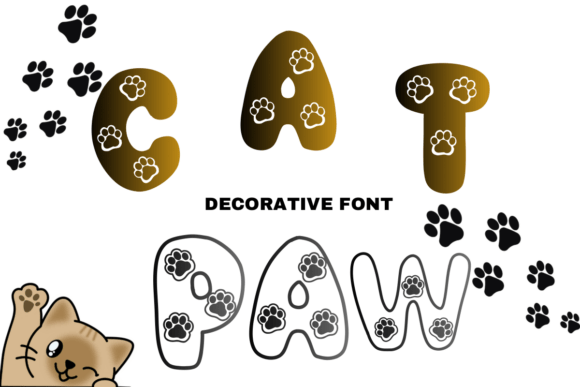
Cat Paw Font: The Purrfect Addition to Your Creative Projects
Are you a designer, crafter, or DIY enthusiast looking for a unique and adorable font to add to your creative projects? Look no further than the Cat Paw Font! This cute decorative font is sure to bring a touch of whimsy and playfulness to your designs, and we’re excited to share all the details with you.
What is Cat Paw Font?
Cat Paw Font is a charming, hand-drawn font that features cat paw prints in various forms. The font is designed to resemble the adorable paw prints of a cat, making it perfect for projects that require a touch of cuteness and playfulness. The font is available in various formats, including digital downloads, making it easy to incorporate into your designs.
Features of Cat Paw Font
- Cute and Playful Design: The Cat Paw Font features adorable cat paw prints in various forms, making it perfect for projects that require a touch of whimsy and playfulness.
- Hand-Drawn: The font is hand-drawn, giving it a unique and personal touch that’s perfect for crafty and DIY projects.
Uses of Cat Paw Font
Cat Paw Font is a versatile font that can be used in a variety of creative projects, including:
- Stationery and Invitations: Add a touch of whimsy to your stationery and invitations with the Cat Paw Font.
- Crafting and DIY Projects: Use the font to create adorable labels, tags, and other embellishments for your crafting and DIY projects.
- Graphic Design: Incorporate the font into your graphic design projects, such as logos, branding materials, and social media graphics.
- Web Design: Use the font to add a playful touch to your website or blog.
In conclusion, Cat Paw Font is a cute and playful font that’s perfect for designers, crafters, and DIY enthusiasts. With its adorable cat paw print design, hand-drawn style, and digital download format, it’s easy to incorporate into your creative projects. Whether you’re looking to add a touch of whimsy to your stationery, crafting projects, or graphic design projects, Cat Paw Font is the purrfect addition.